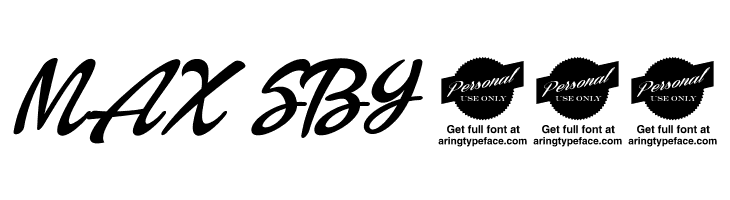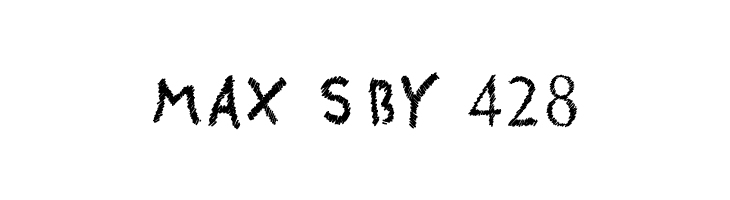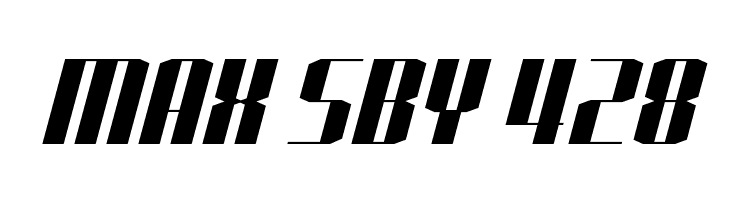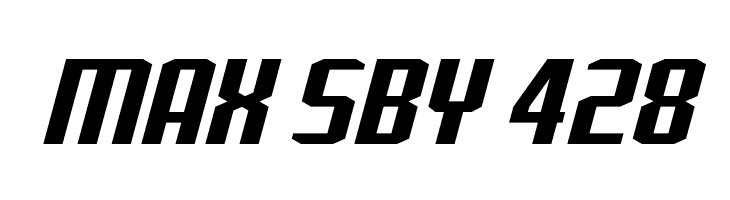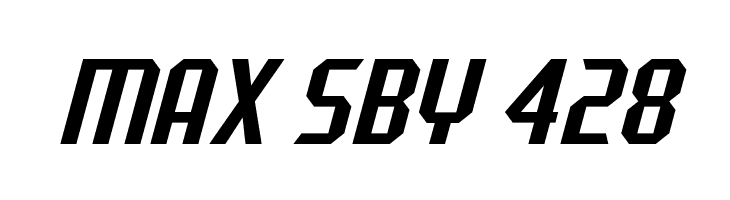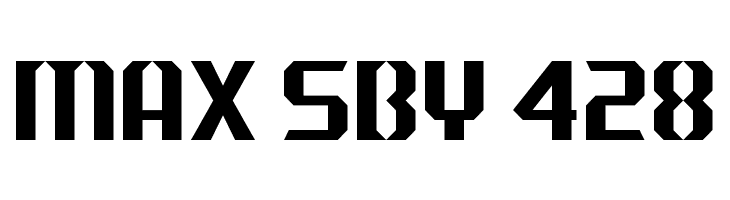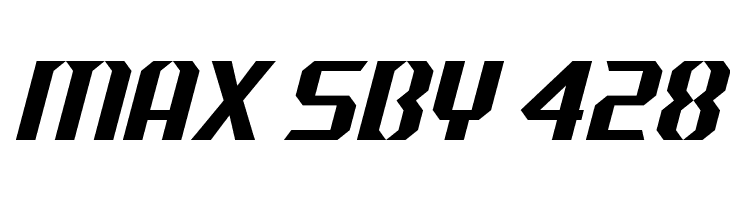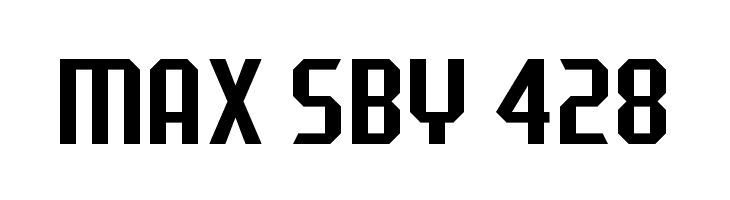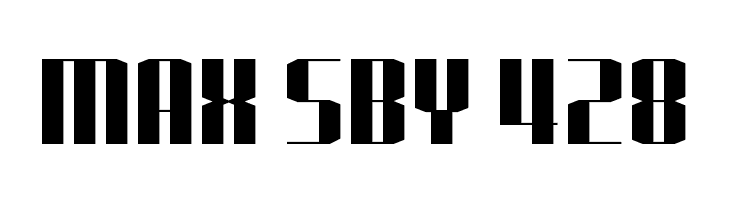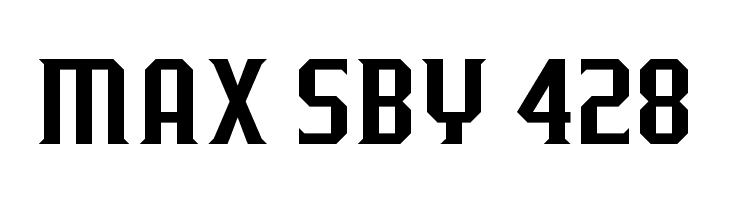
CRU-pokawin-Alize pencil Font
A hand-drawn, pencil-textured font with a sketch-like appearance.
Dollie Script Personal Use Font
A flowing, elegant cursive script font with a handwritten feel.
J-LOG Cameron Edge Sans Normal Font
A bold, geometric font with sharp, angular edges and a modern, futuristic style.
J-LOG Cameron Edge Sans Normal Italic Font
A bold, angular, and modern font with a dynamic slant.
J-LOG Cameron Edge Sans Small Caps Font
A bold, geometric font with sharp, angular edges and a modern, industrial feel.
J-LOG Cameron Edge Sans Small Caps Italic Font
A bold, angular, and italic font with a futuristic and dynamic style.
J-LOG Cameron Edge Serif Normal Font
A bold, geometric font with sharp, angular edges for a modern look.
J-LOG Cameron Edge Serif Normal Italic Font
A bold, angular italic font with a modern and dynamic style.
J-LOG Cameron Edge Serif Small Caps Font
A bold, angular serif font with a modern yet classic appeal.
J-LOG Cameron Edge Serif Small Caps Italic Font
A bold, angular serif font with an italic slant and geometric design.
J-LOG Razor Edge Sans Normal Font
A bold, geometric font with sharp, angular edges and a modern, futuristic style.
J-LOG Razor Edge Sans Normal Italic Font
A sharp, angular sans-serif font with a dynamic, italicized style.
J-LOG Razor Edge Sans Small Caps Font
A bold, geometric font with sharp, angular edges and a modern aesthetic.
J-LOG Razor Edge Sans Small Caps Italic Font
A bold, angular, and italicized font with a futuristic and modern style.
J-LOG Razor Edge Serif Normal Font
A bold, angular serif font with a vintage yet modern appeal.
J-LOG Razor Edge Serif Normal Italic Font
A bold, angular serif font with a modern italic slant.
J-LOG Razor Edge Serif Small Caps Font
A bold, angular serif font with a modern, small caps style.
J-LOG Razor Edge Serif Small Caps Italic Font
Font by
jlog3000
A bold, italic serif font with sharp, angular lines and a modern edge.
J-LOG Rebellion Sans Normal Italic Font